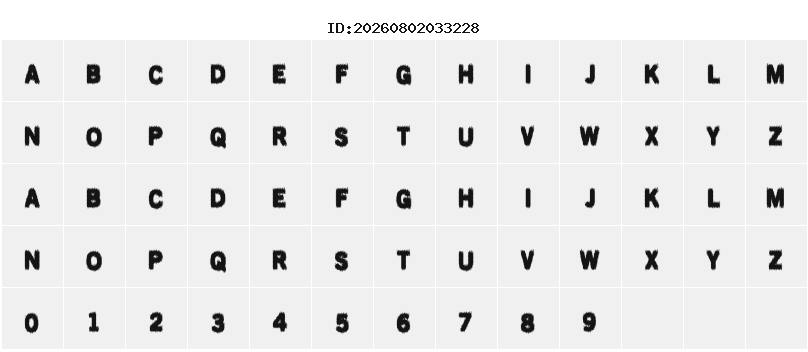
• Font Name: MUDDY TYRES
• Designer: SAJI JOHNNY KUNDUKULAM
About MUDDY TYRES.ttf
MUDDY TYRES.ttf is a modern, elegant sans-serif font designed for ultimate readability and visual harmony. Perfect for branding, headlines, web design, and print materials.